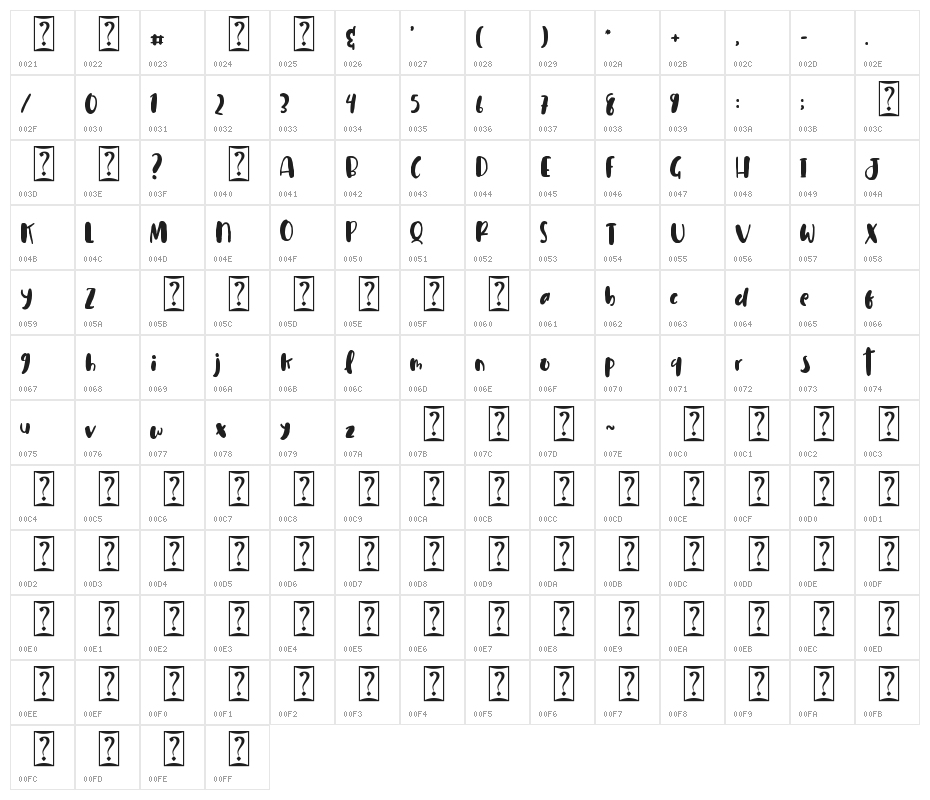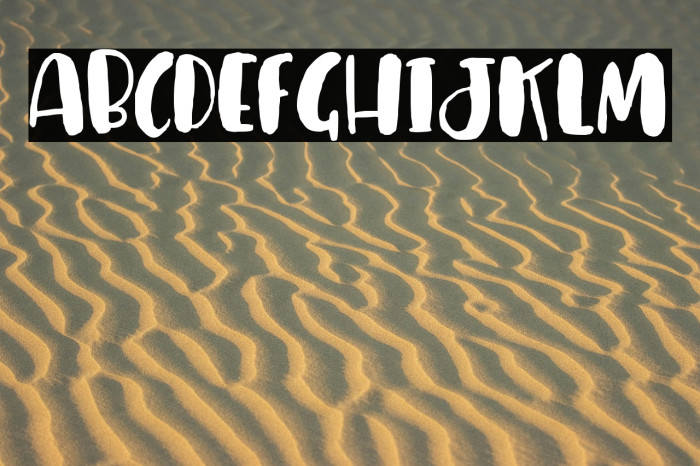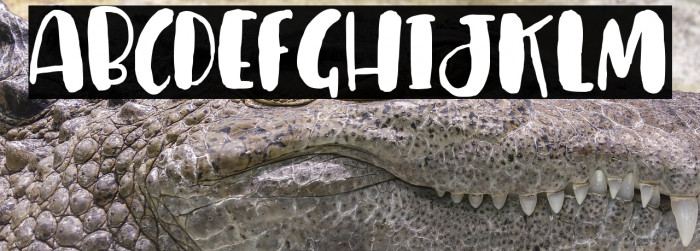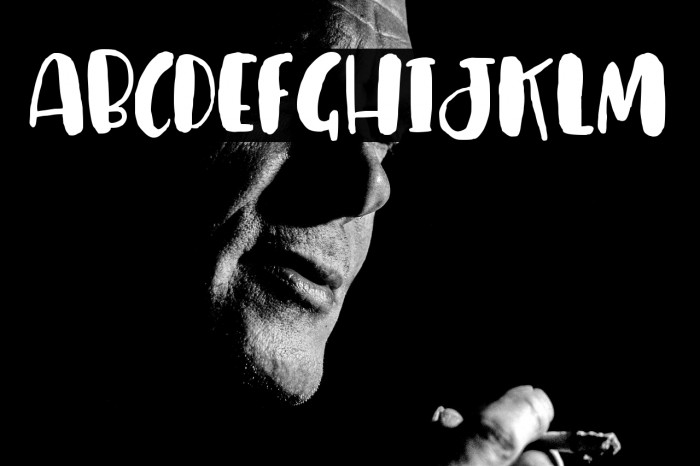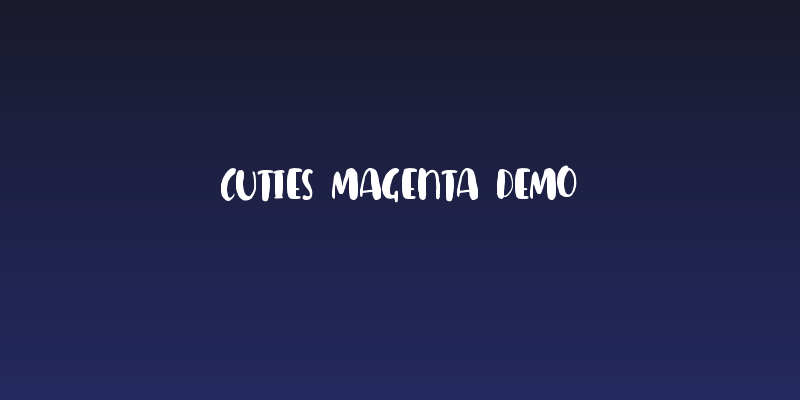
Cuties Magenta Demo Font
Cuties Magenta Demo Description
This playful and bold font features a handwritten style with a brush-like appearance, characterized by its thick strokes and rounded edges. The uppercase and lowercase letters maintain a consistent flow, giving it a casual yet artistic feel. The numbers and special characters complement the overall design, making it versatile for various creative projects. Its unique style is perfect for adding a personal touch to any design, capturing attention with its dynamic and lively appearance.
| Proposed Projects | Ideal for greeting cards, posters, branding, and social media graphics where a personal and artistic touch is desired. |